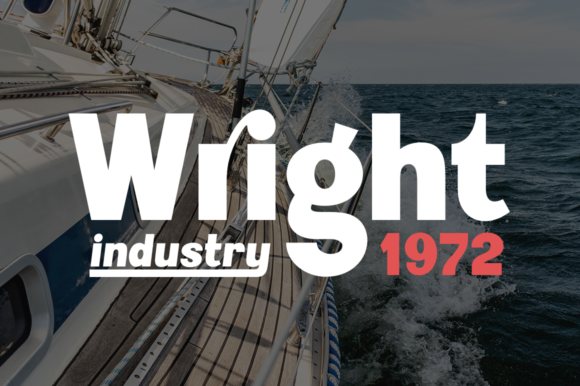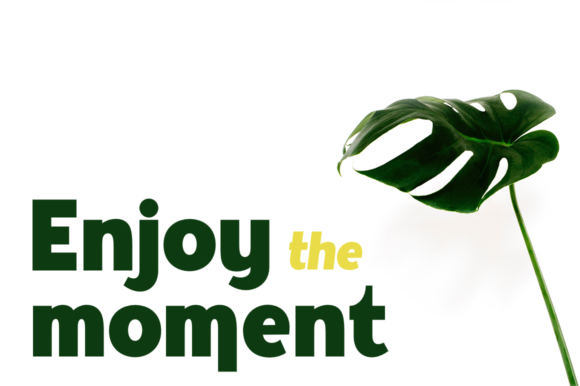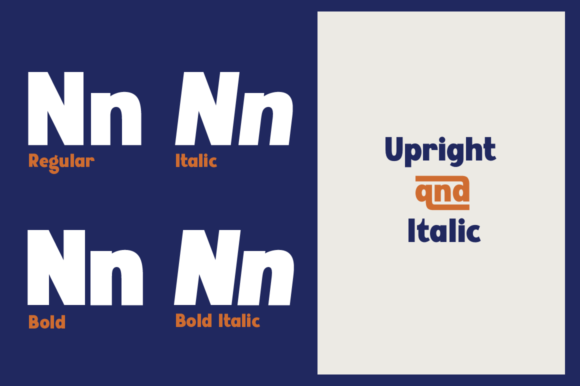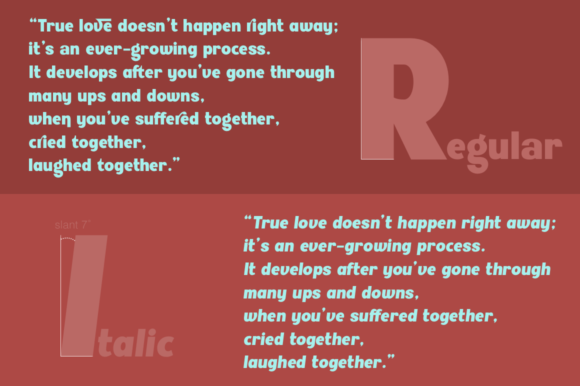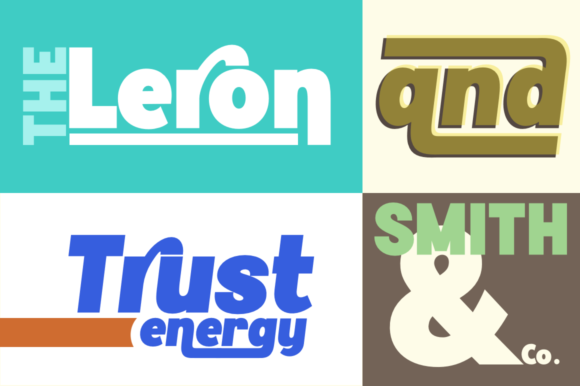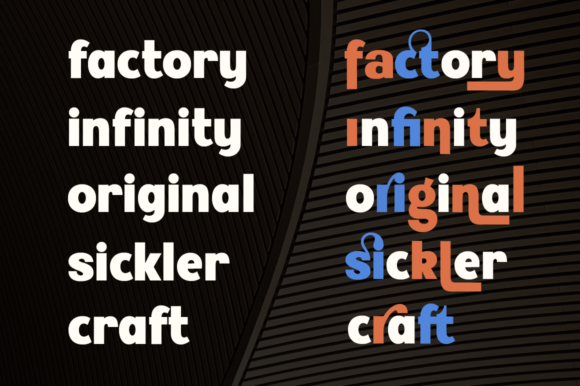
Introduction to Palestra Font
Have you ever found yourself in a creative slump, struggling to bring your ideas to life? Maybe you’re working on a new project, but the right font is just out of reach. I know I have – there’s nothing quite like the feeling of staring at a blank page, searching for the perfect words to express your vision. But what if I told you that I’ve found a game-changer? Say hello to the Palestra Font, a modern sans serif font that’s about to revolutionize the way you approach your next creative project.
With its bold and light lettering, the Palestra Font is a true design resource that offers unparalleled versatility. Whether you’re working on a high-quality brochure or a simple social media graphic, this font is sure to elevate your design to the next level. And the best part? It’s available for a free download, complete with a transparent background – the perfect addition to any creative project.
Key Features of Palestra Font
- Supports a wide range of languages, including Latin and Cyrillic scripts
- Features a unique, elegant design that adds sophistication to any design project
Honest Review: Palestra Font
I recently came across the Palestra Font, a beautiful addition to any designer’s toolbox. With a free download option available, it’s an excellent resource for designers working on creative projects. The high quality of this font is evident, with crisp lines and a professional feel.
One of the standout features of the Palestra Font is its transparent background, which makes it easy to layer over other design elements. This level of flexibility is perfect for designers who need to create complex compositions. ✨
Here are some of the key benefits of using the Palestra Font:
- High-quality design with crisp lines and professional feel
- Excellent for creative projects and design resources
- Only available in a limited range of weights and styles
- May not be suitable for extended blocks of text due to its elegant, decorative design
Overall, I’m impressed with the Palestra Font and would definitely recommend it to designers working on high-end creative projects. With its high-quality design and transparent background, it’s an excellent addition to any design resource library.
Palestra Font
Palestra Font is a high-quality design resource perfect for creative projects. This versatile font can be easily downloaded and integrated into various design tools.
Tips for Getting the Most Out of Palestra Font
For the best results, use Palestra Font on a transparent background and pair it with other high-quality design elements. Experiment with different font sizes and colors to create a unique look.
Palestra Font is ideal for:
- Marketing materials and promotional campaigns
- Web design and e-commerce websites
- Print materials and business cards
Alternatives to Palestra Font
Oswald Font is a sans-serif typeface that offers a high-quality, modern look perfect for creative projects. It’s free to download and can be used in a variety of design resources, including logos, brochures, and websites. When to use: For designs that require a clean and minimalistic approach. How it compares to Palestra Font: Oswald Font has a more geometric feel, while Palestra Font is more rounded and elegant.
Lato Font is a modern sans-serif typeface that offers a high-quality, transparent background, making it ideal for creative projects. It’s free to download and can be used in a variety of design resources, including logos, brochures, and websites. When to use: For designs that require a clean and elegant look. How it compares to Palestra Font: Lato Font has a more delicate feel, while Palestra Font is more robust and eye-catching.
Montserrat Font is a geometric sans-serif typeface that offers a high-quality, modern look perfect for creative projects. It’s free to download and can be used in a variety of design resources, including logos, brochures, and websites. When to use: For designs that require a strong and urban feel. How it compares to Palestra Font: Montserrat Font has a more industrial feel, while Palestra Font is more elegant and sophisticated.